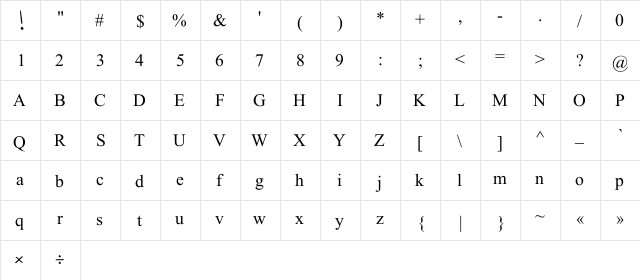
MB Lateefi Regular
| Designer | Abdul-Majid Bhurgri |
Design Context for MB Lateefi Typeface
MB Lateefi is a composed and adaptable typeface that performs quietly and consistently across a wide range of design contexts.